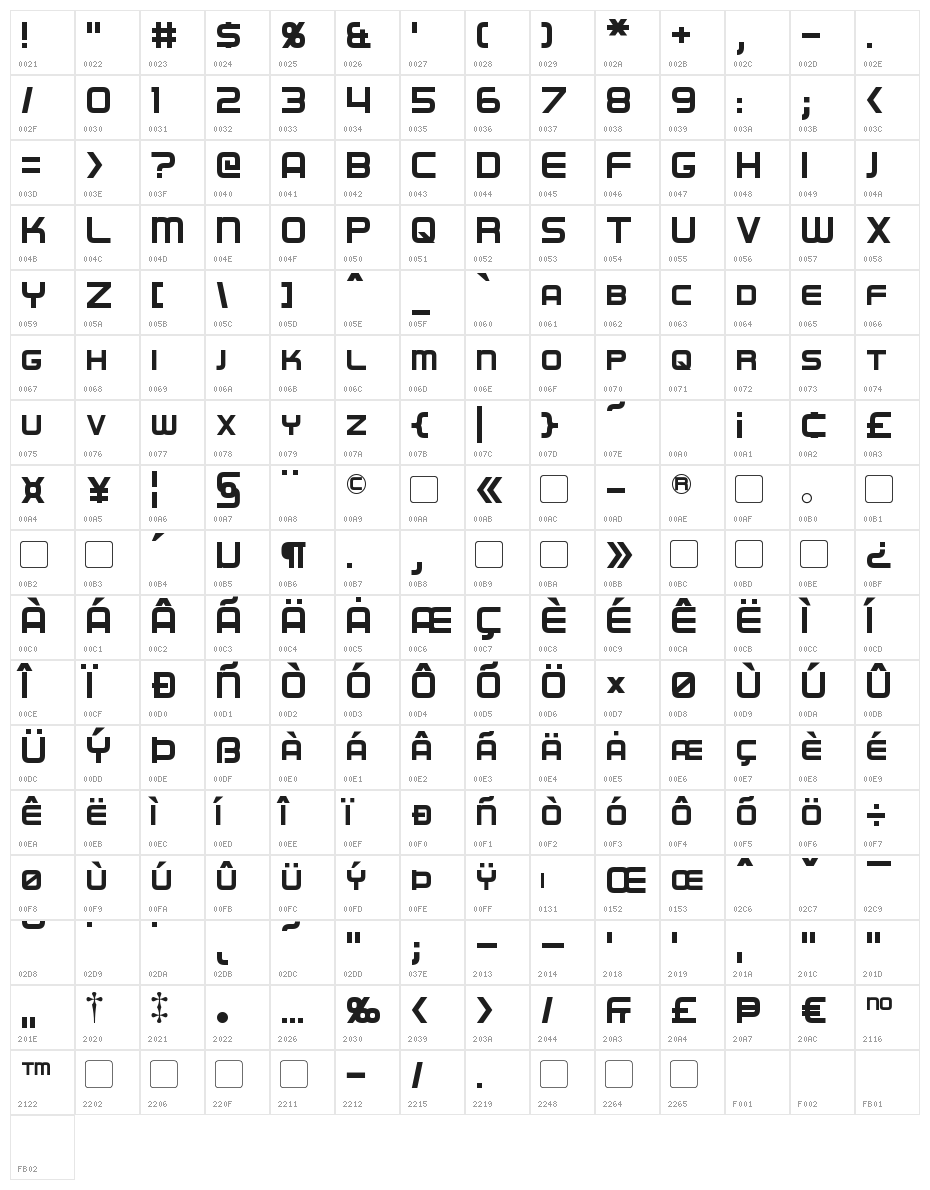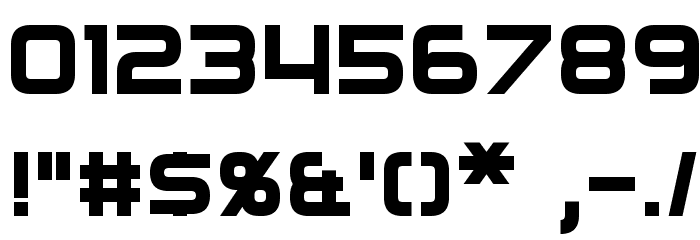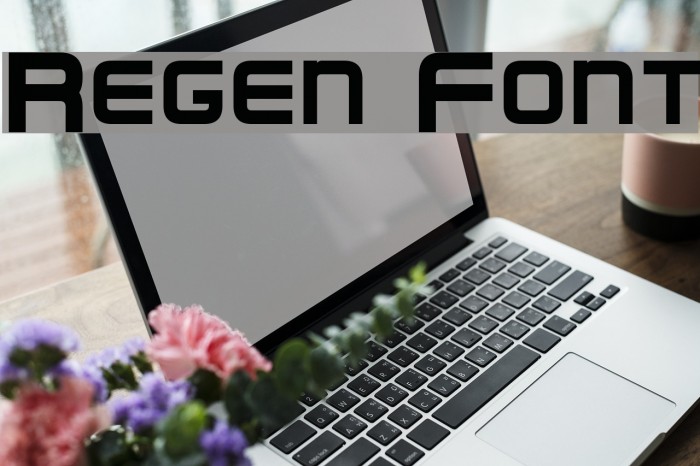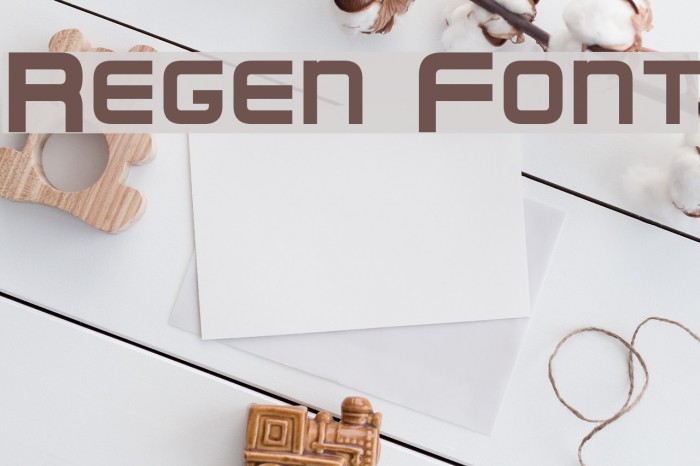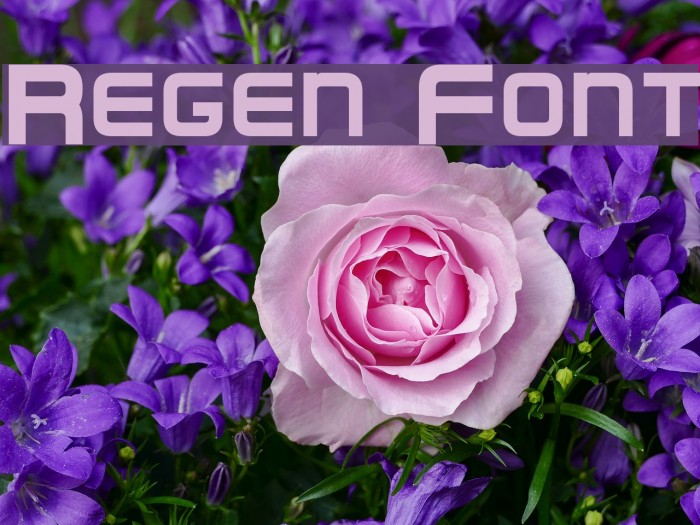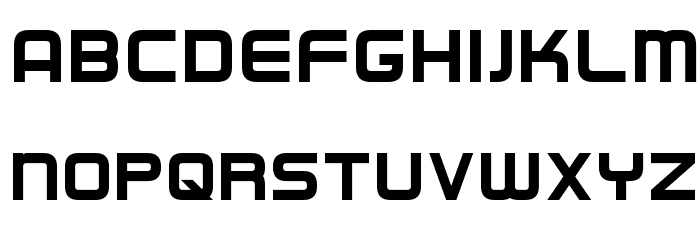
Regen Font
Regen Description
This font features a bold, geometric design with a modern and futuristic appeal. The characters are constructed with uniform stroke widths, giving it a monospaced appearance despite being proportional. The uppercase and lowercase letters share a consistent height, enhancing its structured look. The numerals are equally bold and maintain the geometric style, making them highly legible. Special characters are designed with the same attention to detail, ensuring they blend seamlessly with the rest of the character set. This font's clean lines and bold presence make it suitable for a variety of design applications.
| Use Case | Headlines, Logos, Digital Interfaces |
| Proposed Projects | Ideal for technology branding, modern advertising, futuristic posters, and digital interfaces. |